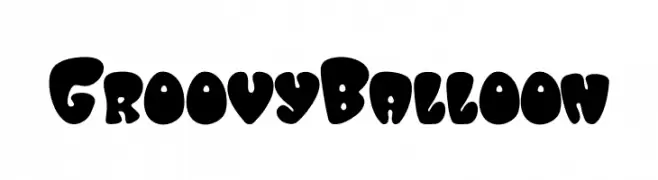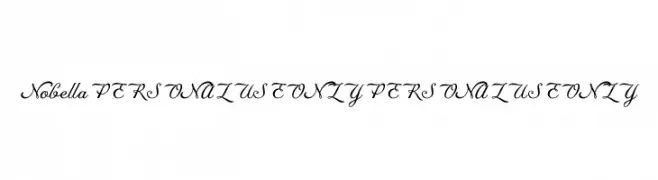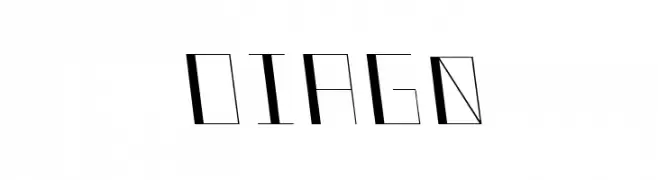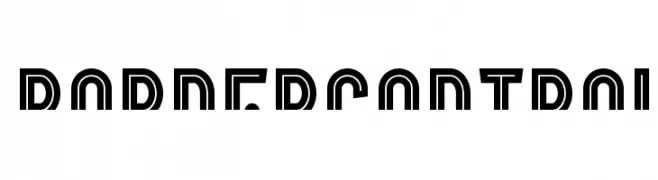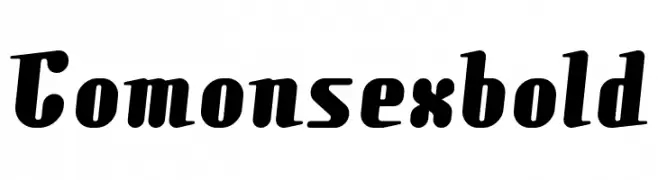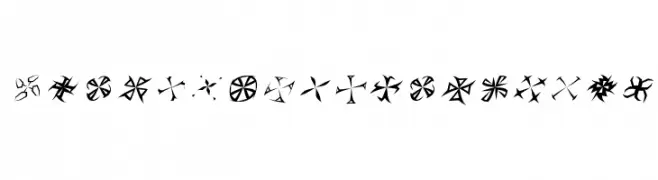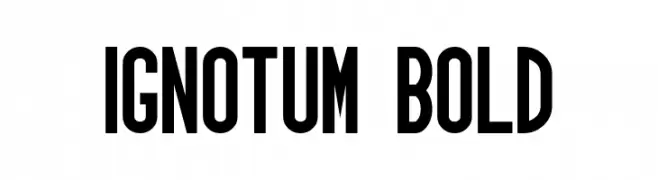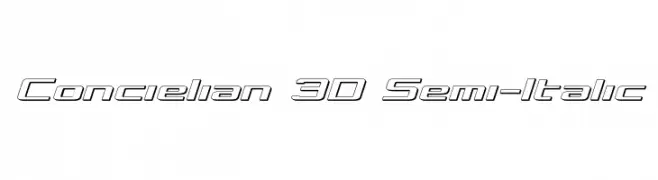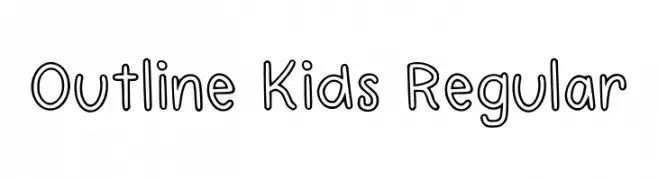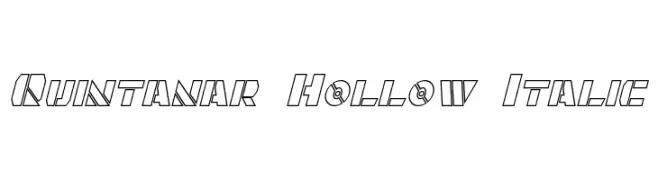
A playful, balloon-like typeface with bold, rounded characters.
An elegant script font with flowing, interconnected letters and a classic calligraphic style.
A bold, angular font with a futuristic and industrial design.
A bold, dynamic font with thick strokes and a slightly condensed style.
A decorative, abstract font with geometric, starburst-like characters.
A bold, playful font with a whimsical and slightly gothic style.
A bold, condensed font with uniform stroke thickness and modern appeal.
A bold, jagged, and condensed italic font with a horror-inspired style.
A playful, rounded font with smooth curves and a friendly appearance.
A 3D semi-italic font with outlined characters and a futuristic style.
A playful, hand-drawn outline font with a whimsical and friendly style.
A geometric, hollow, and italic display font with a futuristic style.
A bold, 3D block-style font with a modern and playful geometric design.
A decorative font mimicking international passport stamps and seals.
A bold, distressed font with a grunge aesthetic and textured appearance.
A distressed, grungy font with an eroded, chaotic appearance.
A bold and italic font with strong, dynamic strokes and excellent readability.
A sleek, modern, thin italic font with a minimalist design.
A geometric, modular font with a modern and abstract style.
A modern, slightly italic font with clean lines and balanced proportions.
A bold, block-like font with a vintage Western flair.
A whimsical, cursive script font with interconnected, flowing letters.
A bold, distressed font with a grunge, hand-drawn appearance.
A bold, modern font with geometric shapes and expanded width, ideal for headlines.
A bold, condensed, and italicized font with a futuristic and dynamic style.
A bold, 3D geometric font with a brick-like design.
Illustrative dingbat font with boat and ship icons.
A dynamic, handwritten-style font with expressive strokes.
A playful, hand-drawn style with irregular, ink-like strokes.
A bold, zombie-themed dingbat font with horror illustrations.
A bold geometric outline font with layered, dimensional characters.